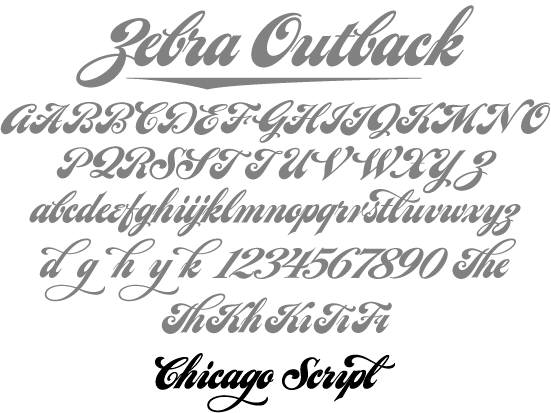
This font actually started out as a collaboration with my friend,
Master Signwriter Arthur Vanson. We started to make a period style font together but soon realized that our styles were just too different. I lost interest in it but Arthur persevered and went on to produce his version which became the famous "Tideway Script."
In October 2007 I finally finished my version, Chicago Script.
Arthur is one of my heroes of Type!